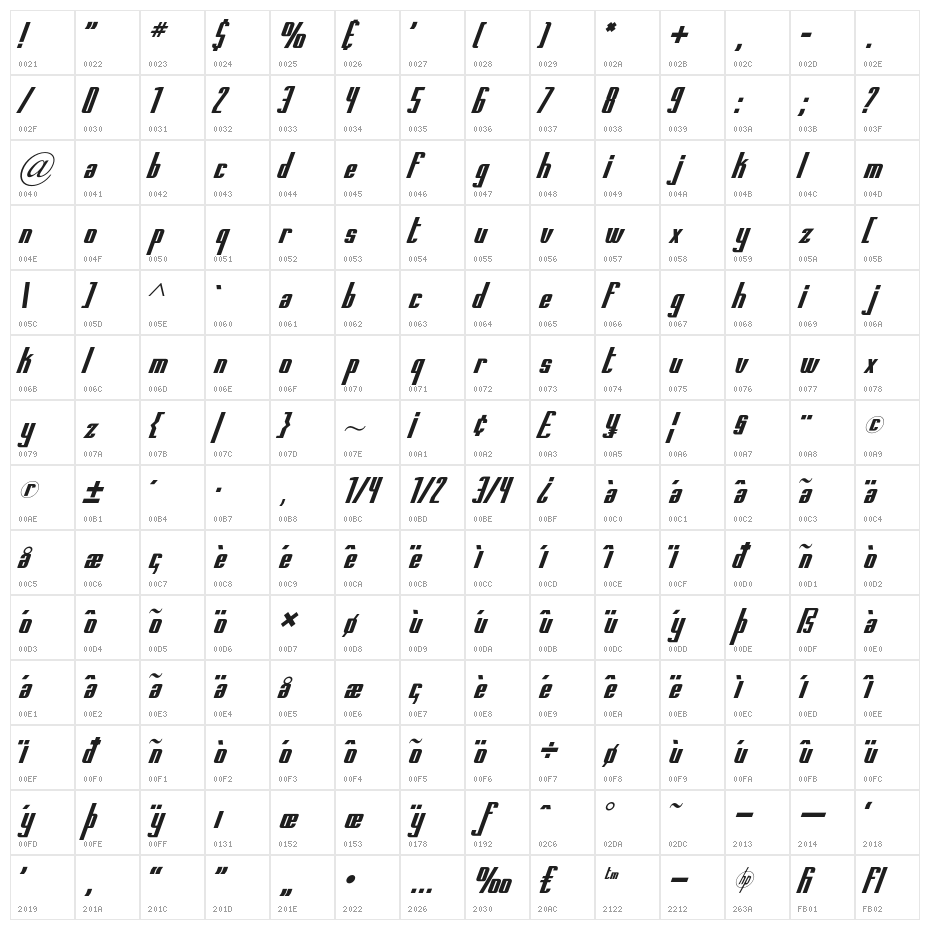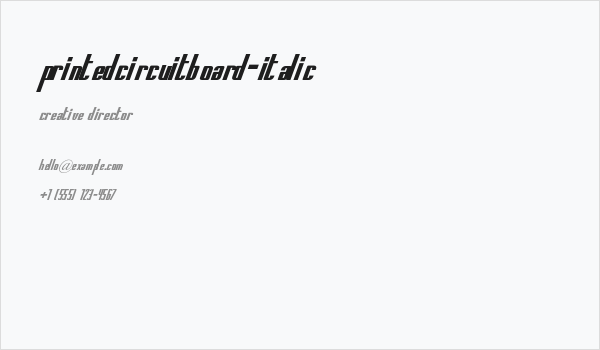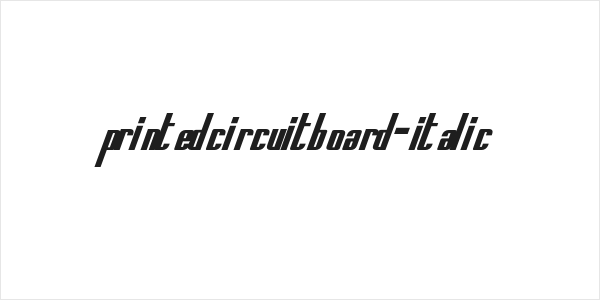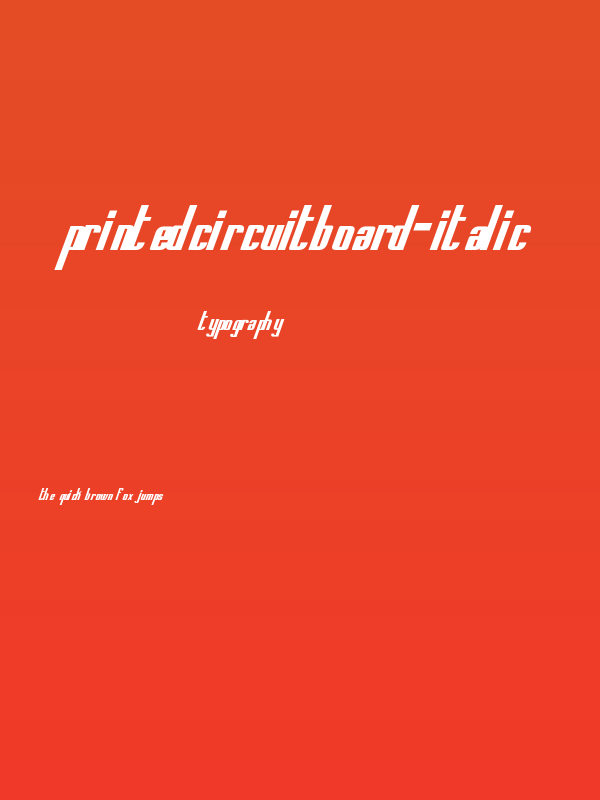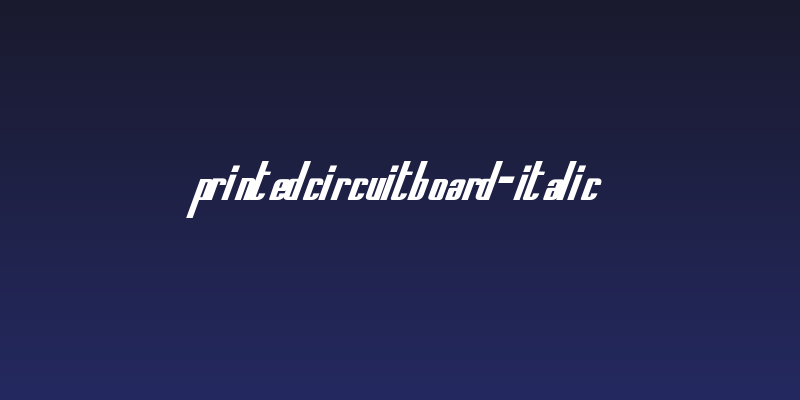
PrintedCircuitBoard-Italic Font
PrintedCircuitBoard-Italic Description
This font features a distinct, futuristic style with sharp, angular lines and a slanted, italicized form. The characters are bold and condensed, giving a sense of speed and modernity. Each letter is crafted with precision, resembling the intricate pathways of a circuit board. The numbers and special characters maintain the same angular and slanted design, ensuring consistency throughout. The overall appearance is sleek and technical, making it ideal for projects that require a modern and edgy aesthetic.